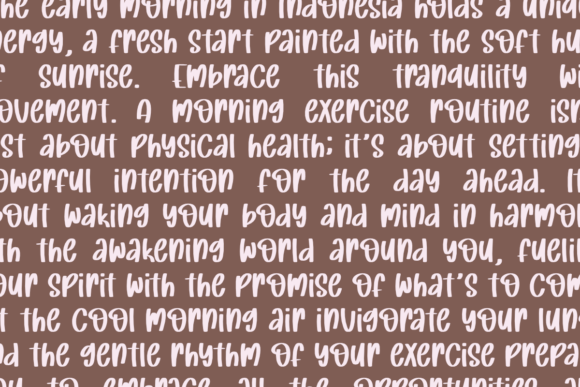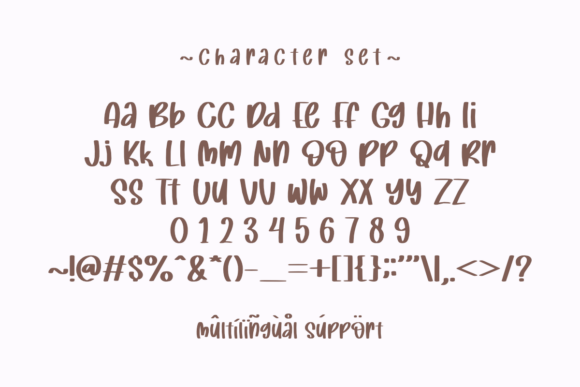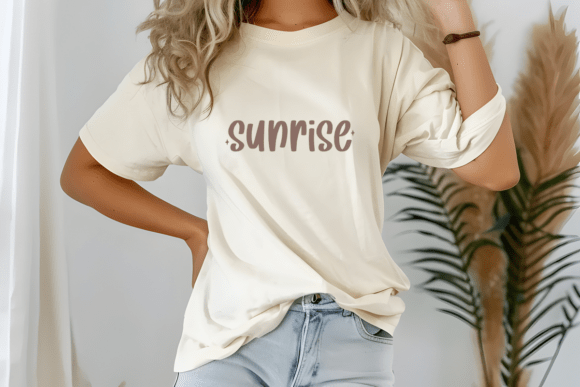
Introduction to Morning Exercise Font
Morning Exercise is a sweet and cursive handwritten font.
This gentle font will look gorgeous on a variety of design ideas It will add a joyful and romantic touch to each of your projects.